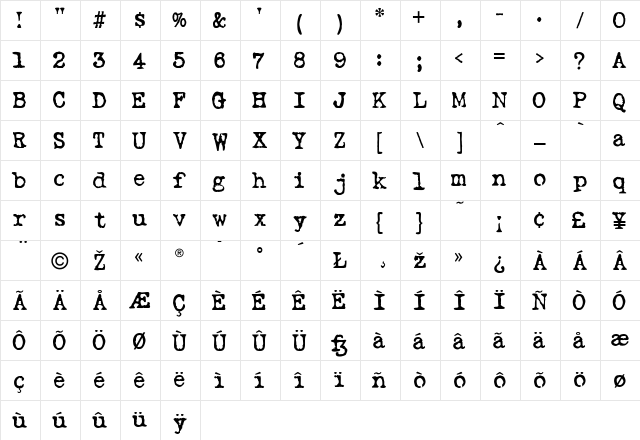
Loveletter Regular
Loveletter Regular Font Details
Design Context for Loveletter Typeface
Loveletter takes a measured approach to typography — its balanced proportions and neutral character make it a reliable workhorse for both digital and print work.
Pro Tip: Pair Loveletter with a font of contrasting weight or personality to build a more expressive typographic hierarchy.